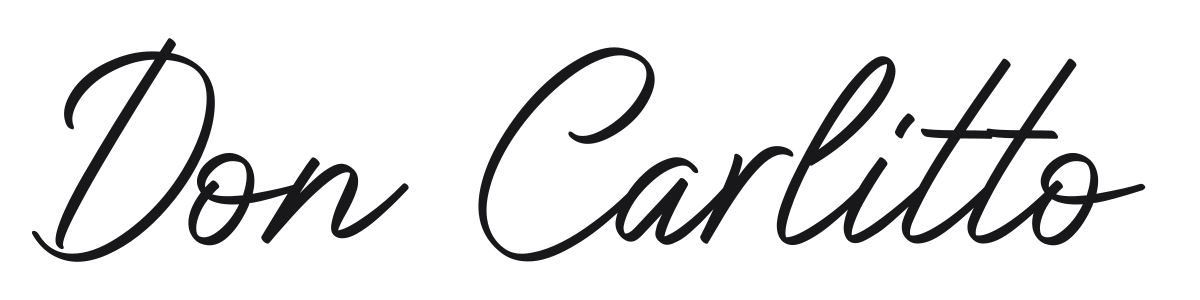
Don Carlitto
Don Carlitto is a flowing casual script with thin, connected strokes and sweeping loops that feel relaxed and contemporary. The long-tailed descenders and natural joins give it the look of a confident hand lettering artist. Strong for wedding stationery, boutique branding, and lifestyle packaging.